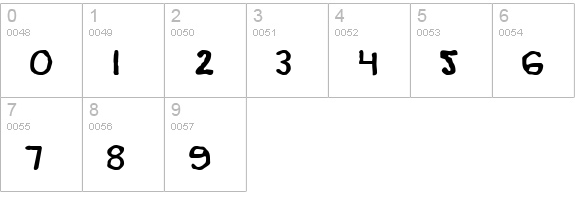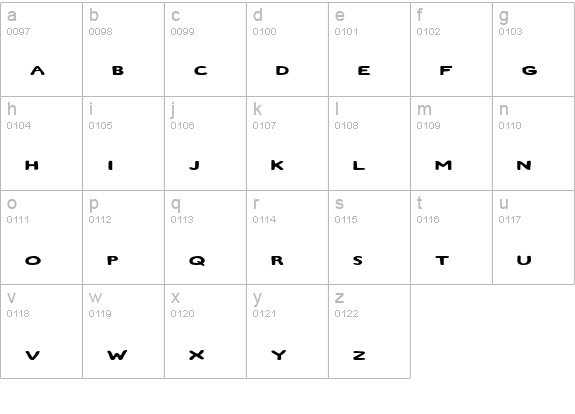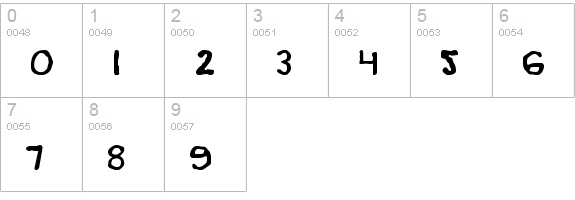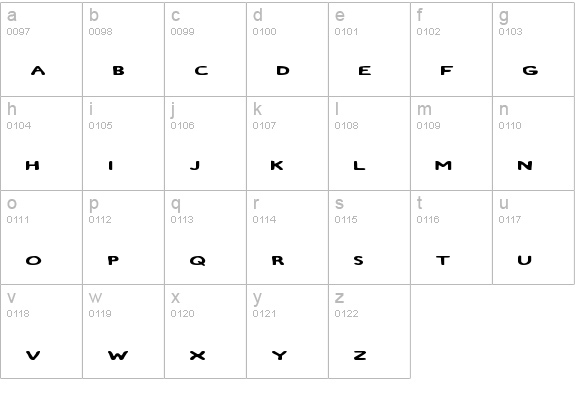
Zamboni Joe Expanded Font Details
Zamboni Joe Expanded is a distinctive, extended-width variant in the Zamboni typeface family \xE2\x80\x94 well suited to design and typography projects.
Zamboni Joe Expanded font is a bold and eye-catching typeface that commands attention with its unique and modern design. With its wide and elongated letterforms, this font is perfect for making a statement in headlines, banners, and logos. The clean lines and sharp edges give Zamboni Joe Expanded a sleek and professional look that is sure to leave a lasting impression. Best of all, Zamboni Joe Expanded font is available for free download at FontsMarket.com. Whether you're a designer looking for a fresh new font to add to your collection or a business owner in need of a standout typeface for your branding, Zamboni Joe Expanded has you covered. Don't miss out on this fantastic opportunity to enhance your projects with this striking and versatile font. Download Zamboni Joe Expanded today and take your designs to the next level!